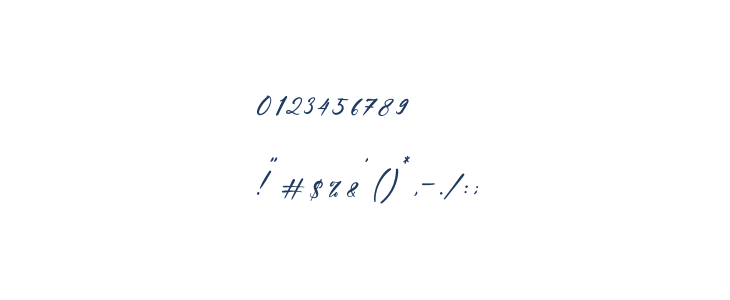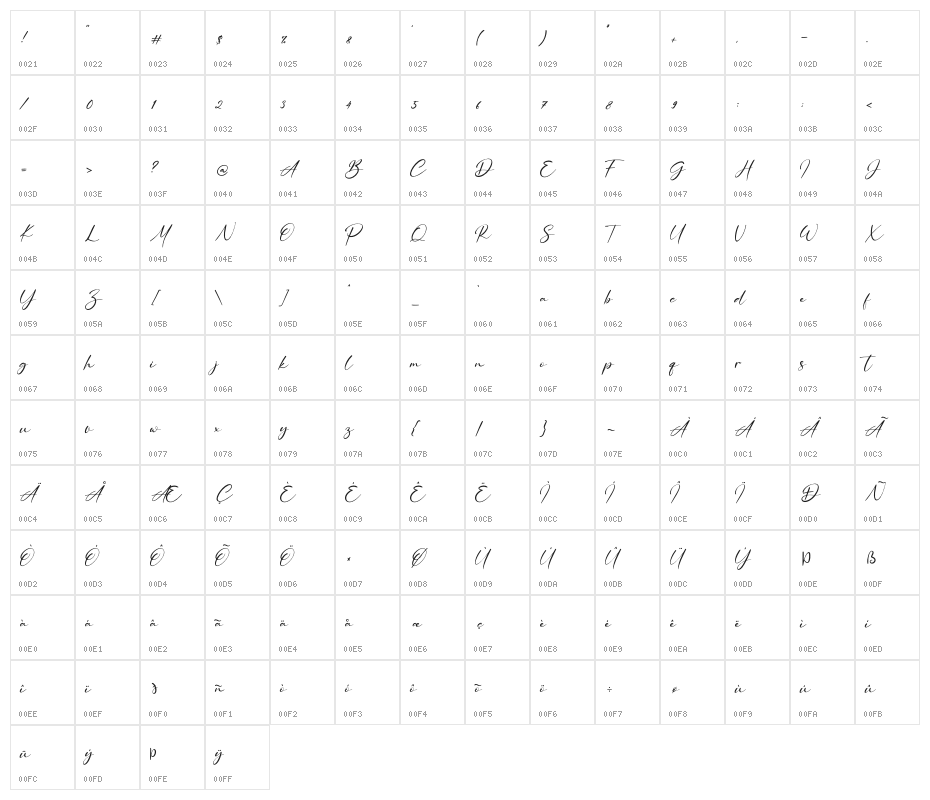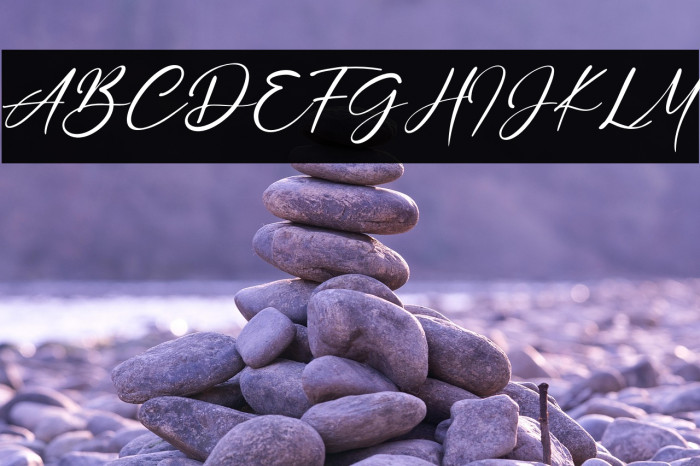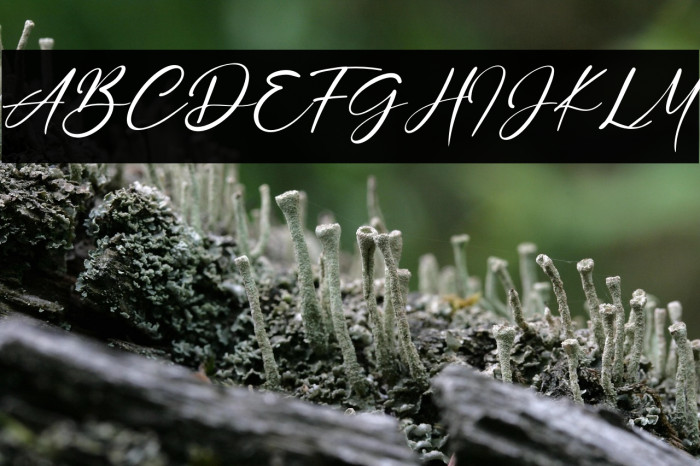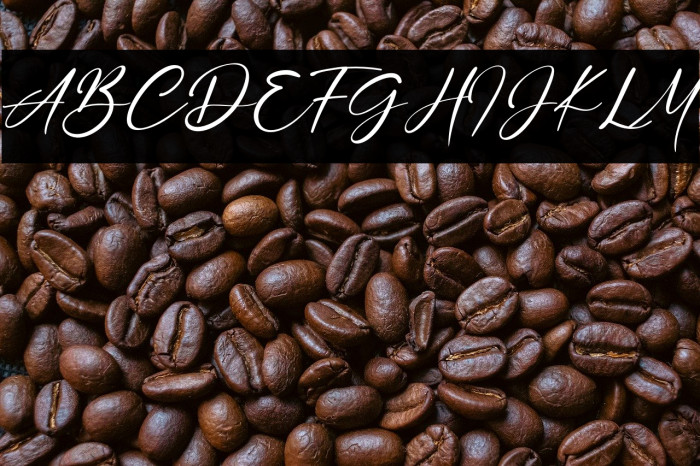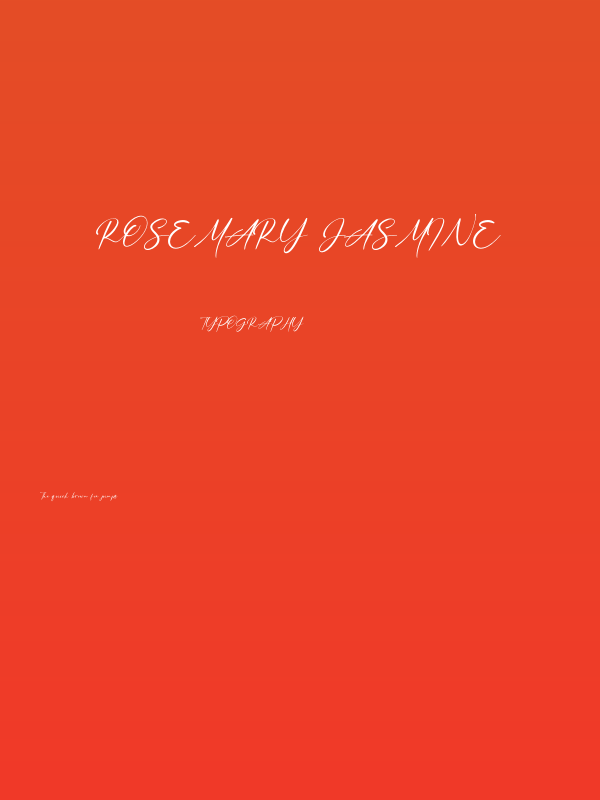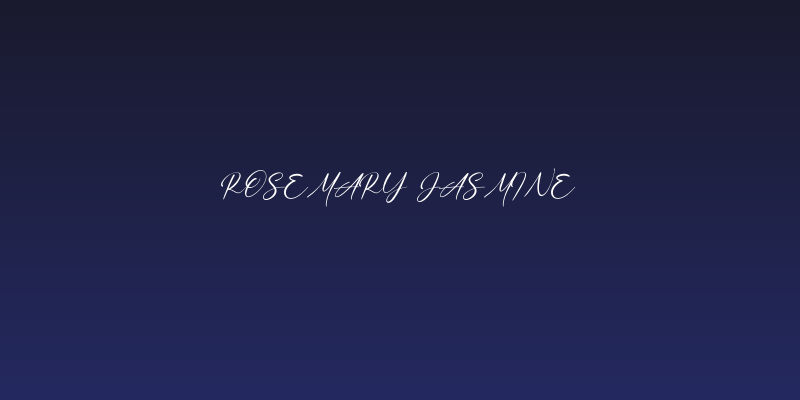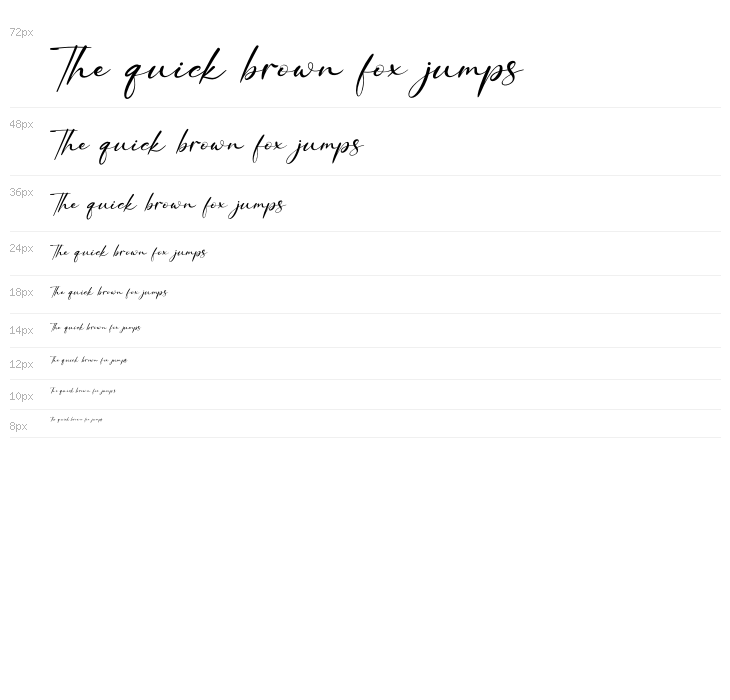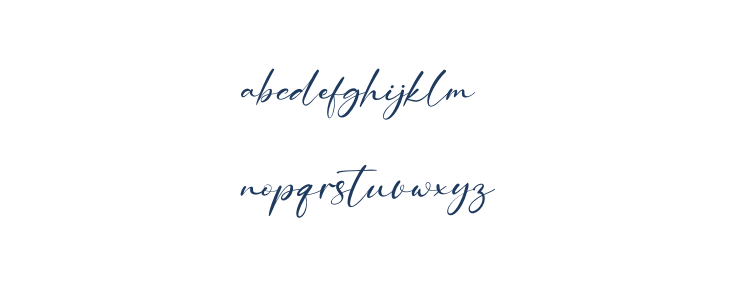
Rosemary Jasmine Font
Rosemary Jasmine Description
This elegant script font features a flowing, cursive style with a modern touch. The uppercase letters are characterized by sweeping curves and flourishes, giving a sense of movement and grace. The lowercase letters maintain a consistent flow, with gentle loops and connections that enhance readability. The numerals are designed to complement the letters, maintaining the same fluidity and elegance. Special characters are thoughtfully integrated, ensuring they blend seamlessly with the overall aesthetic. This font exudes sophistication and charm, making it ideal for projects that require a personal, handwritten feel.